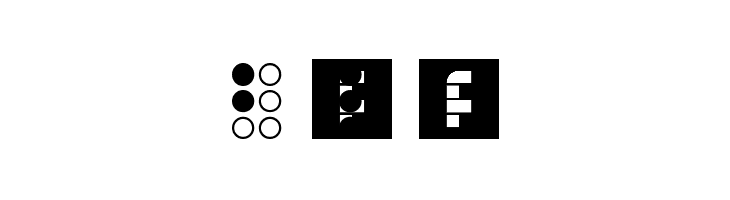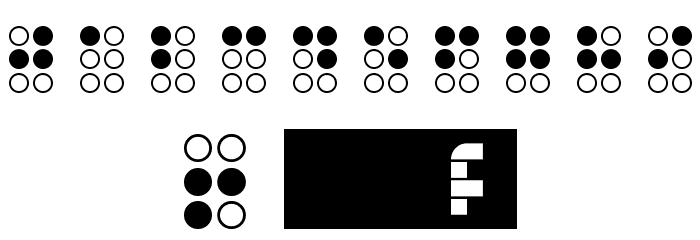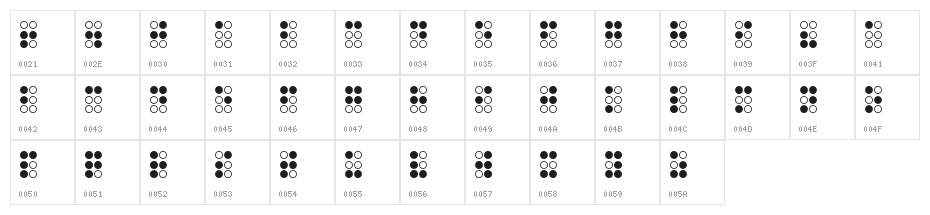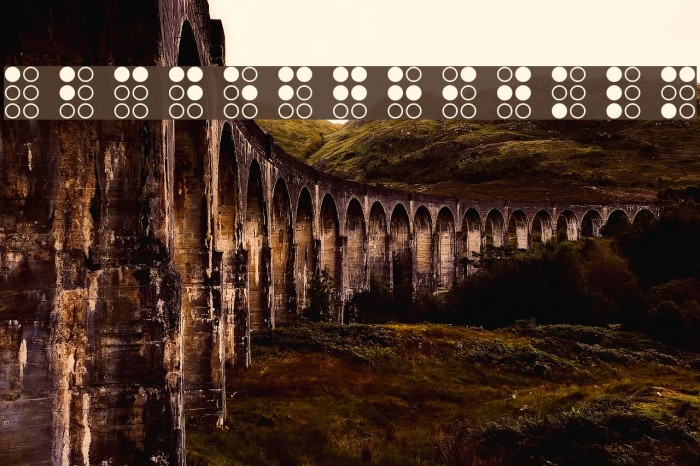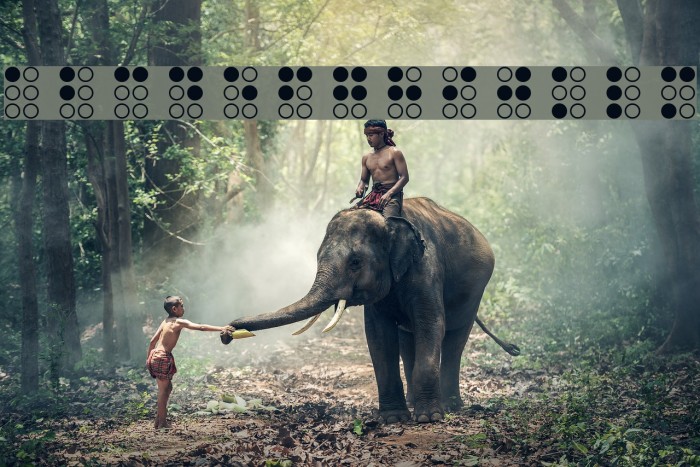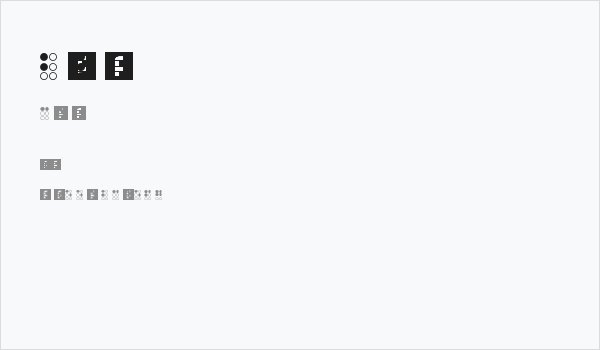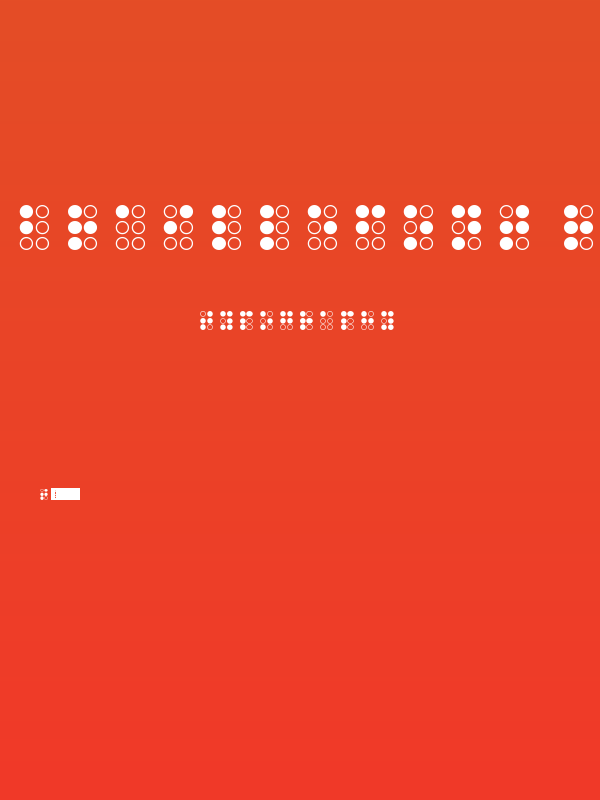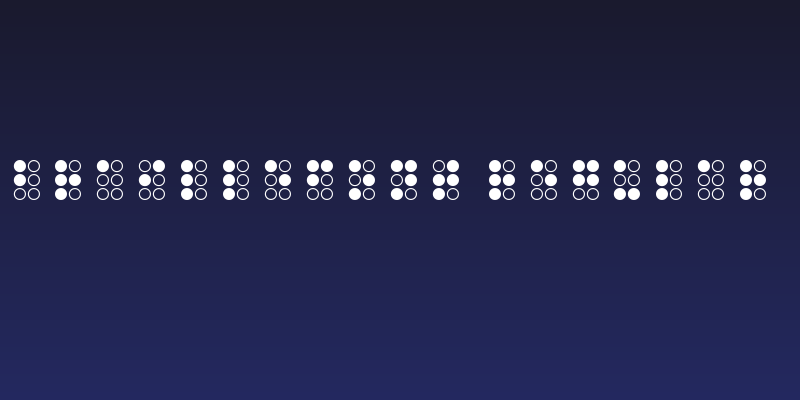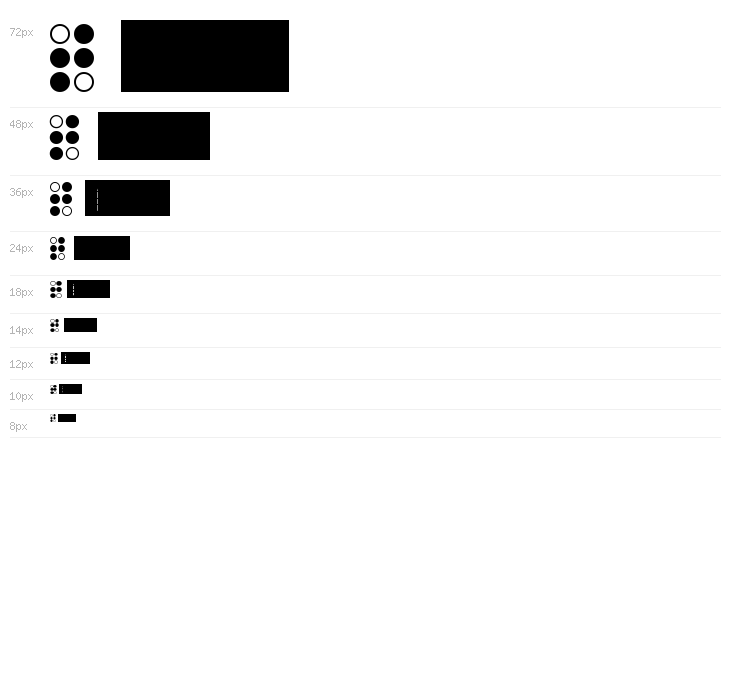
Braillefont Regular Font
Braillefont Regular Description
This font is a unique representation of Braille, designed to visually mimic the tactile writing system used by people who are visually impaired. Each character is represented by a pattern of raised dots, arranged in a grid of two columns and three rows. The design is both functional and aesthetically pleasing, offering a modern take on traditional Braille. The font maintains a consistent dot size and spacing, ensuring readability and uniformity across all characters. This style bridges the gap between visual and tactile communication, making it an innovative choice for inclusive design projects.